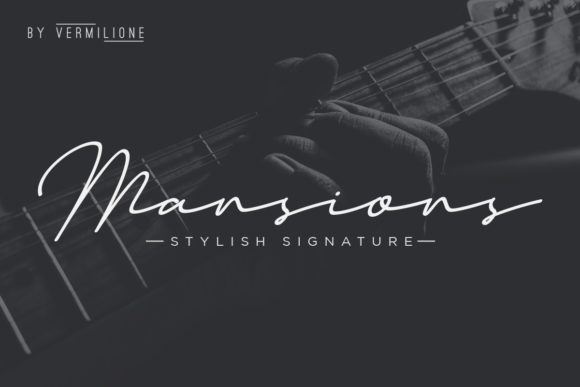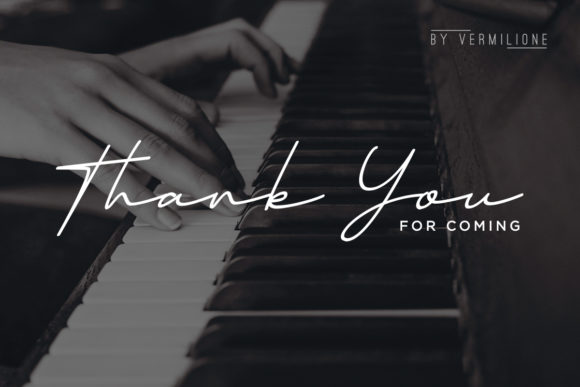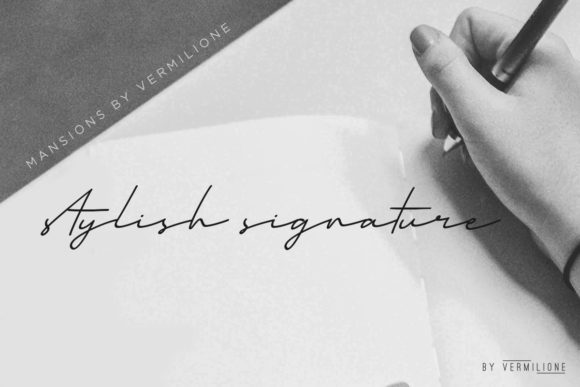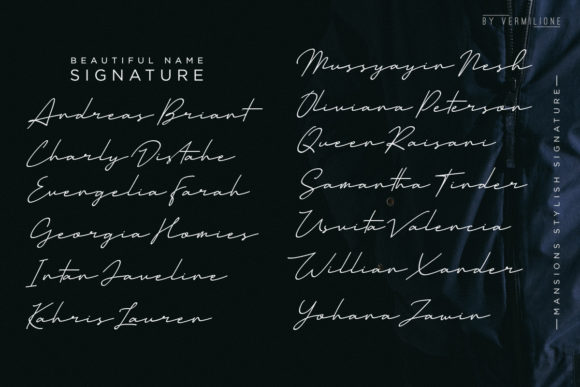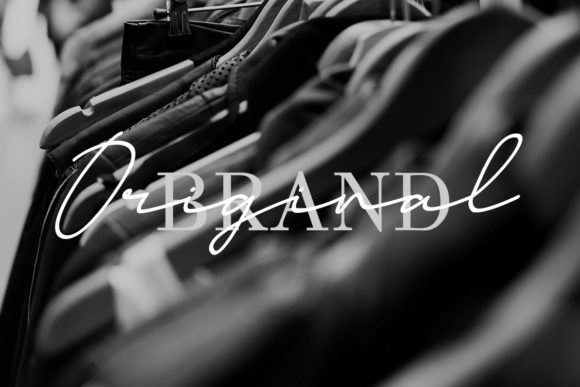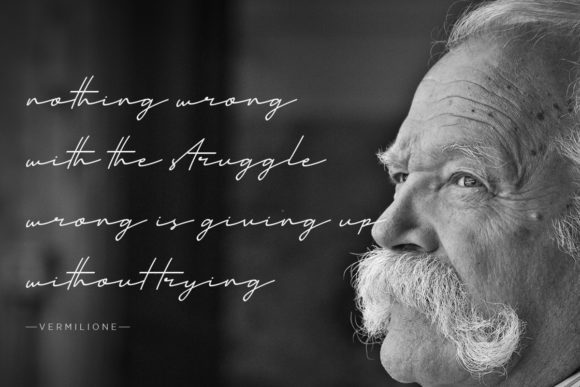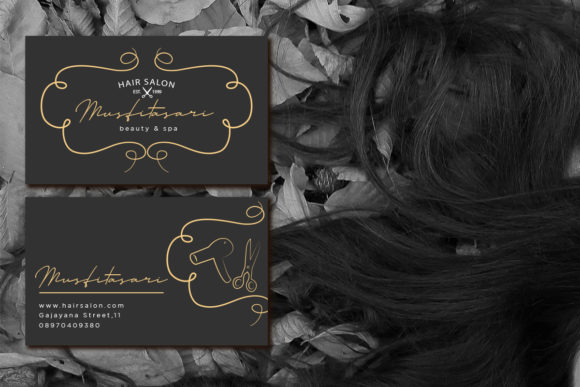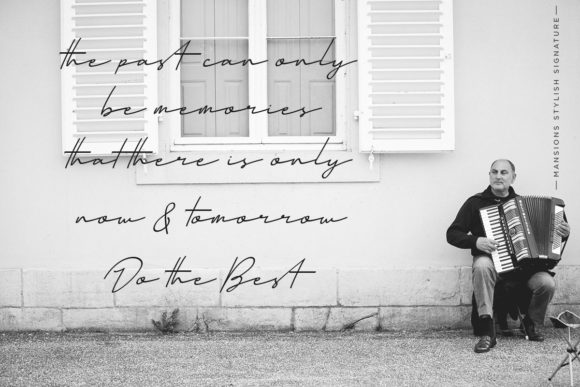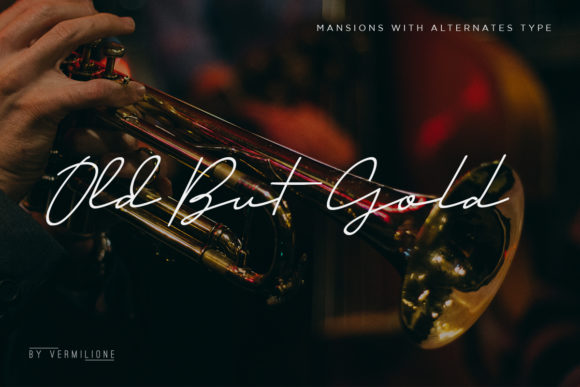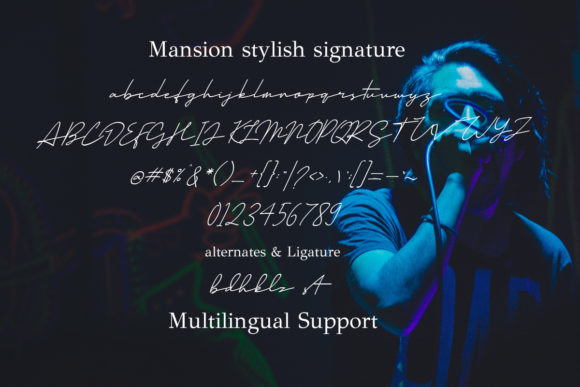
Mansions Font
About Mansions Font
The Mansions is a handwritten signature script with a natural & stylish flow. It’s perfect for personal branding and was made with the intention to be used by signature photographers as a watermark for their photography business. Everything from personal branding & wedding invitations to advertising could benefit from this collection of signature fonts.
The Mansions is a must-have signature script that has a diverse set of alternates that surely can be used many times over in various projects in the future. This collection fills a void and separates itself from other scripts available.